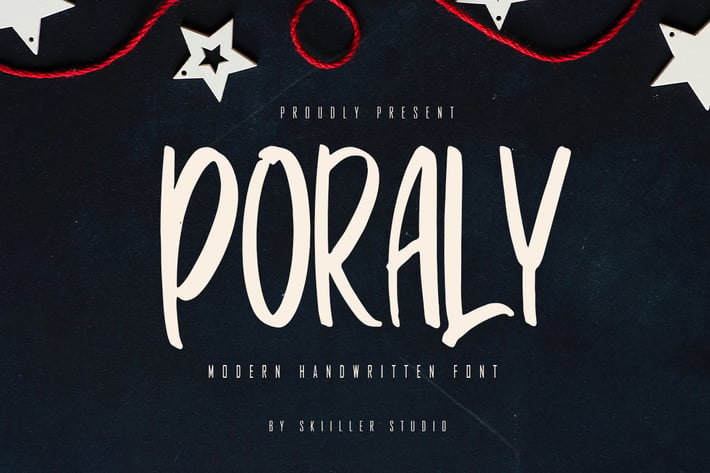
Poraly - Modern Handwritten Font
Poraly was inspired by the Handwritten of natural brushes. Written in quick motion using a brush pen, it's a bit dry and looks realistic..
+ Ligature
+ Basic Latin Language Support (AÀÁÂÃÄÅCÇDÐEÈÉÊËIÌÍÎÏÑOØÒÓÔÕÖUÙÜÚÛWYÝŸÆß )